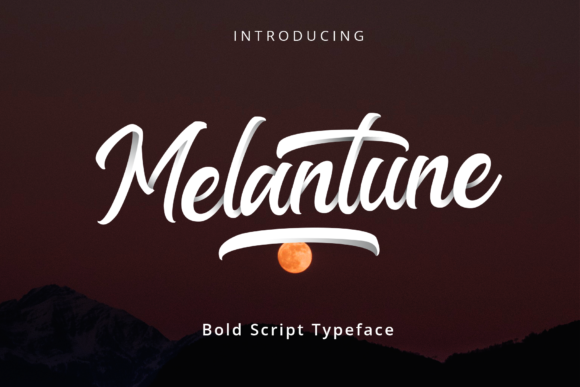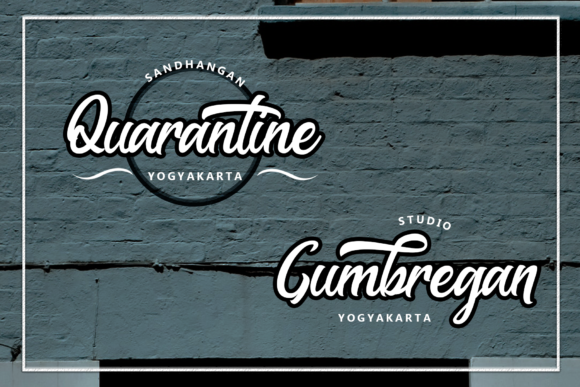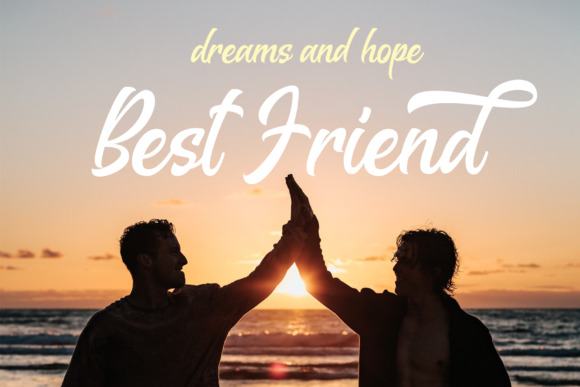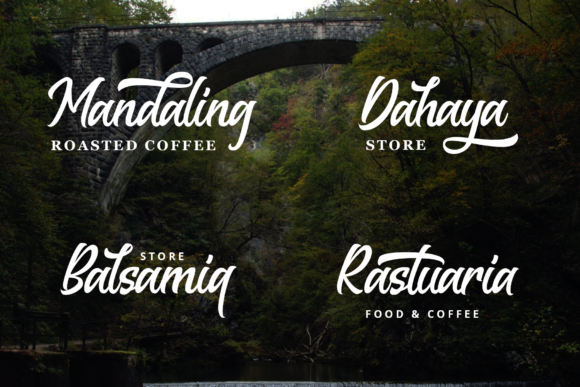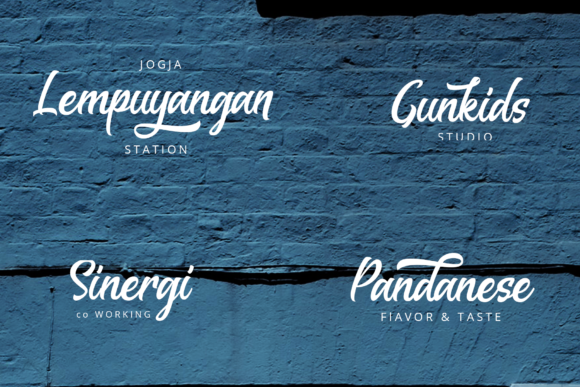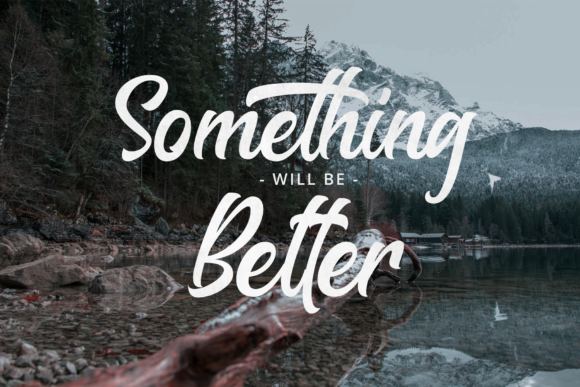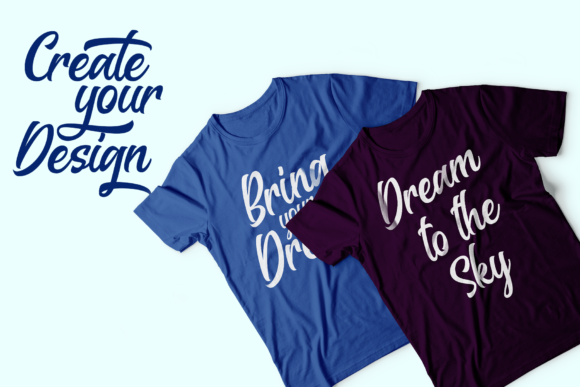
Melantune Font
About Melantune Font
The Melantune is a bold script typeface that was inspired by a hand lettering artist from Indonesia. It’s great for logos, t-shirts, labels, poster, letterheads, and much more!